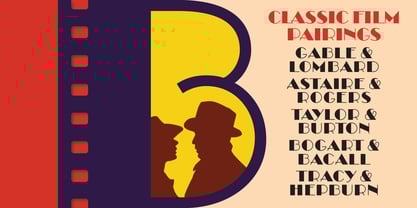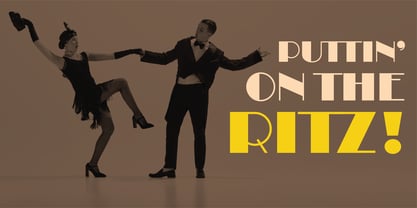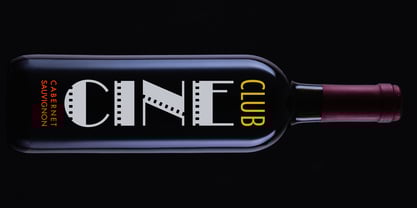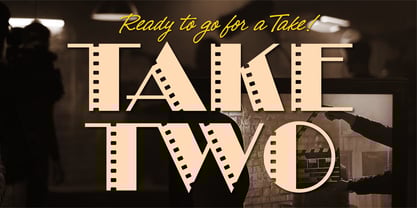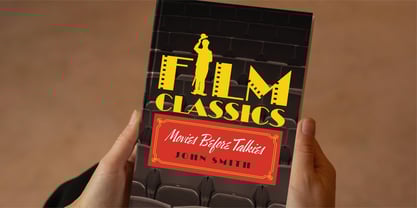
Take Two BF™
I like those old analog technologies that function well, and can still get the job done.
I guess it’s partly for sentimental, perhaps nostalgic reasons. That’s not to say, however, I don’t also enjoy new technologies. Though I own and use mega pixel cameras, film photography happens to be on my list of older, beloved, analog means.
Then there are some, musically speaking, who prefer the rich, warm sound of a vinyl record over CD’s and MP3’s. But I digress.
It’s reassuring to know that in this modern day and age, the image of a filmstrip as a design element, is ever useful to communicate concepts and messages related to vintage movies, movie stars, film festivals and the like. That “film look” is also used in digital contexts, though not necessarily to imply that digital photography uses film, of course.
With Take Two BF, I believe I’ve created a typestyle that fits right in among both analog and digital arenas.
NOTE: the script fonts used in the slide show are this foundry’s Narrative BF, and Seagrass BF.